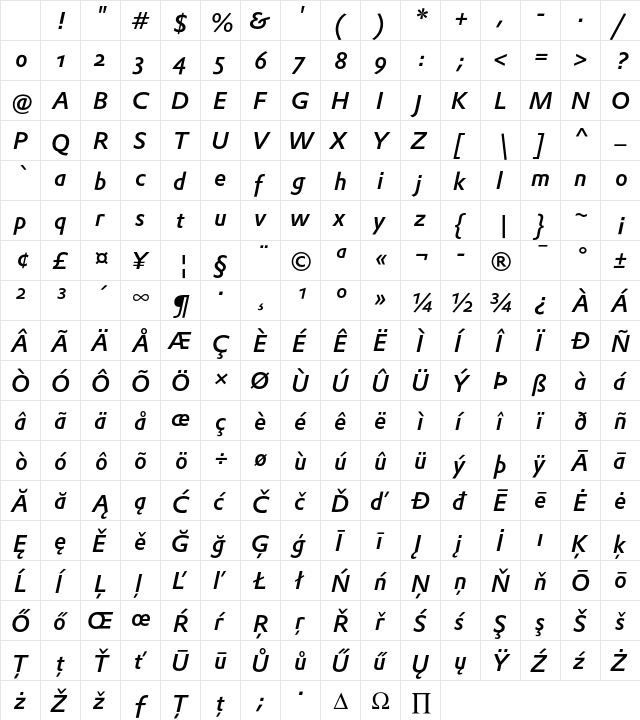
Complete DTLProkyonSTMedium Italic glyph index. Displaying only characters natively supported by DTLProkyonSTMedium Italic font.
DTLProkyonSTMedium is a composed and adaptable typeface that performs quietly and consistently across a wide range of design contexts. The slanted form adds forward momentum and visual energy.